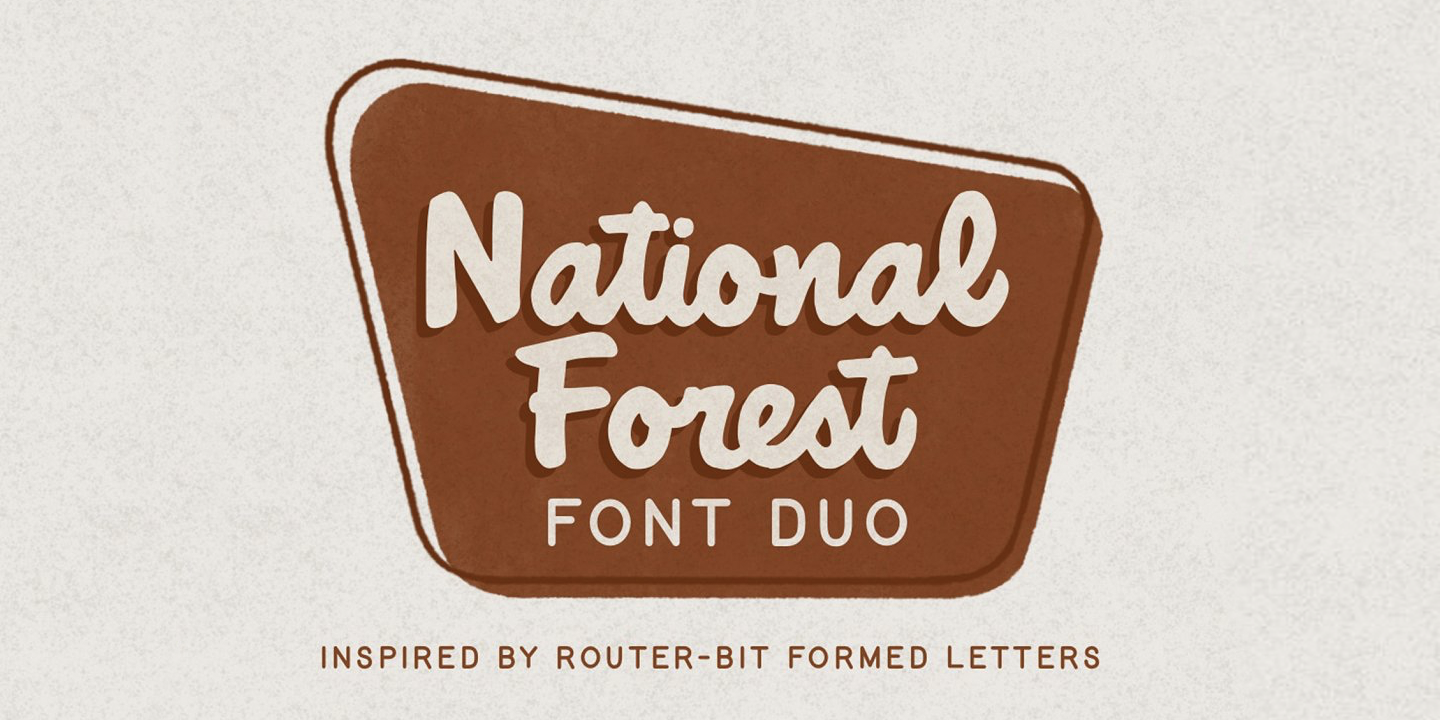
National Forest Font is perfect for outdoor recreation branding, national park signage systems, environmental conservation campaigns, wilderness tour marketing, camping equipment packaging, forest service materials, nature education resources, and outdoor adventure tourism. This naturally majestic typeface excels in projects requiring wilderness authority and environmental authenticity where forest conservation meets contemporary outdoor design communication.
What makes National Forest Font exciting is its powerful embodiment of America's pristine wilderness heritage through robustly crafted letterforms that capture the strength and timeless beauty of ancient forests. The font features sturdy characters with natural proportions and forest-inspired details that convey conservation, outdoor adventure, and the protected status of our most treasured natural landscapes. Its wilderness character makes it perfect for park services, outdoor brands, and conservation organizations celebrating the majesty and importance of forest preservation.
National Forest Font family includes multiple weights and wilderness variations that enhance its natural appeal while providing design flexibility for outdoor recreation and conservation applications. The family typically offers light, regular, medium, semibold, and bold weights, along with rustic alternates, forest symbols, and conservation ornaments that complement wilderness and environmental design themes perfectly.
Whether you're developing national park identity systems, creating outdoor recreation marketing, or designing environmental education materials, National Forest Font Free Download provides the perfect wilderness solution for projects celebrating forest conservation and outdoor heritage. This font's natural authority and conservation messaging make it essential for organizations protecting and promoting America's wilderness areas and outdoor recreation opportunities.
The majestically crafted letterforms and wilderness proportions of National Forest Font create immediate associations with protected natural landscapes while maintaining excellent readability across outdoor signage and environmental applications. Its distinctive conservation personality and forest symbolism make it an invaluable tool for designers working with park services, outdoor recreation, and environmental conservation brands. Download National Forest Font today and preserve wilderness heritage in your creative projects with this naturally authoritative typeface that perfectly captures the enduring majesty and conservation importance of America's national forests.